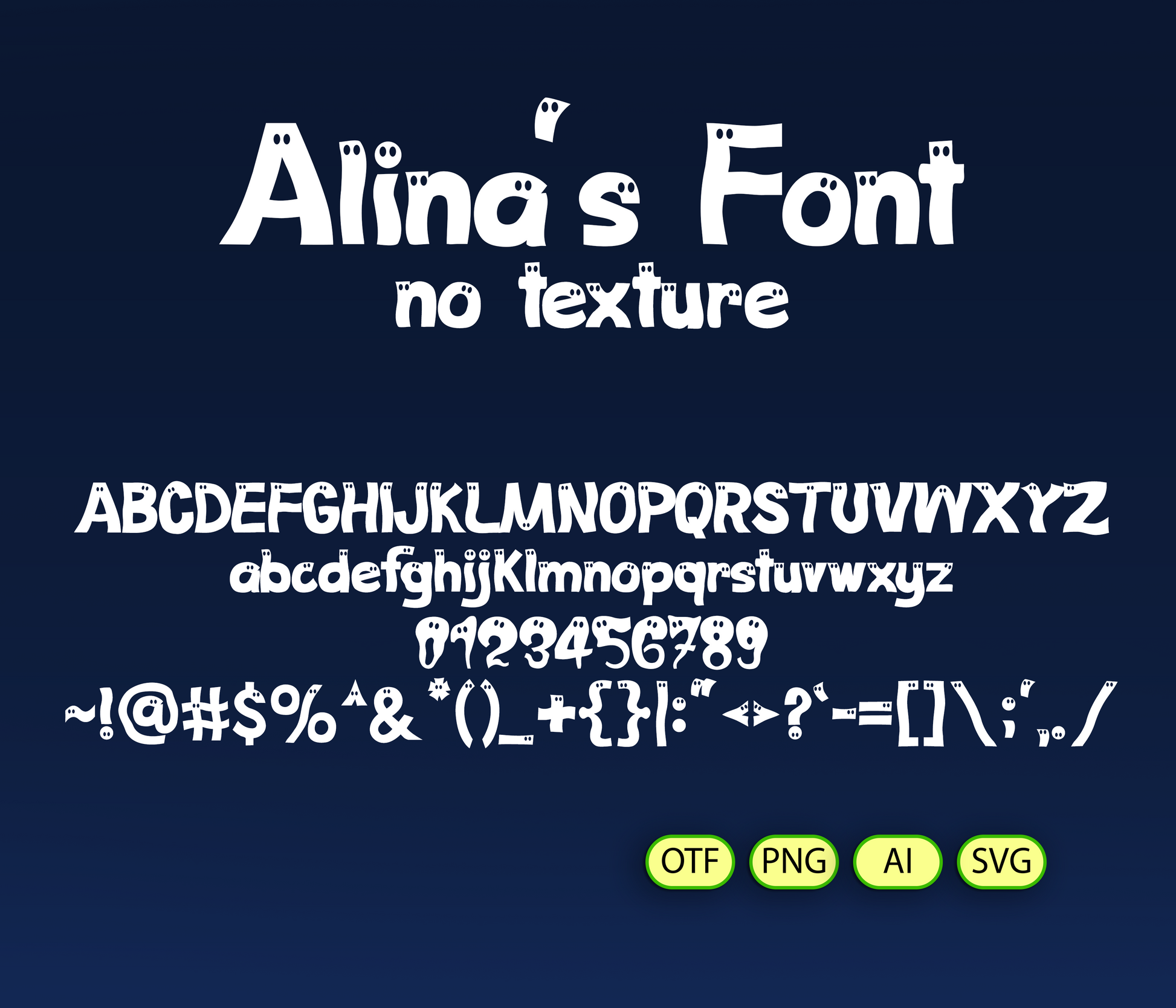
Haunted Hoover Hero Font
Step into the spooky yet endearing world of a certain vacuum-wielding ghost hunter with our Haunted Hoover Hero Font. This typography set captures the essence of spectral mansion escapades with a playful twist, perfect for fans, designers, and creatives looking to add a touch of friendly fright to their projects.
Our Haunted Hoover Hero Font features quirky, slightly shaky characters with a hint of cartoon spookiness, reflecting the blend of ghostly themes and humorous gameplay. Ideal for:
Luigi's Mansion Font